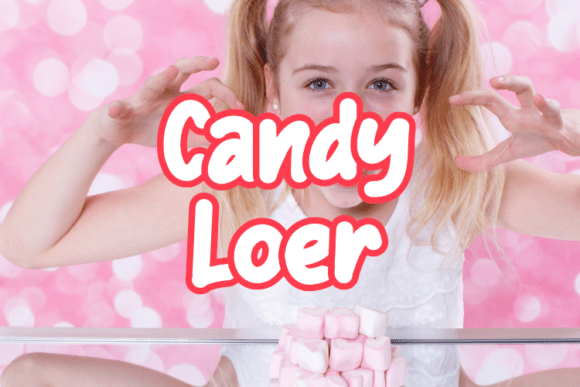
Candy Loer Font: The Ultimate Creative Companion for Design Enthusiasts
In the vast universe of typography, fonts play a pivotal role in bringing creative visions to life. Among the myriad of fonts available, Candy Loer font stands out as a versatile and stylish choice, ideal for a wide range of design projects. Whether you’re working on clothing designs, t-shirt graphics, or a plethora of other products, Candy Loer is tailored to enhance the allure of any design. In this comprehensive article, we’ll delve into the features, benefits, and applications of Candy Loer font, exploring how it can be a perfect tool for manifesting your creative vision.
Introduction to Candy Loer Font
Candy Loer font is a modern, stylish typeface designed to cater to the diverse needs of designers and creatives. Its unique charm and flexibility make it an excellent choice for various design projects, from casual t-shirt designs to more sophisticated branding materials. The font’s versatility is one of its most appealing features, allowing it to seamlessly adapt to different design contexts.
Key Features of Candy Loer Font
- Versatility: Candy Loer font is designed to be versatile, making it suitable for a wide range of design projects, including clothing designs, t-shirt graphics, posters, and more.
- Style and Allure: Candy Loer’s design is focused on enhancing the aesthetic appeal of any design, providing a perfect blend of style and readability.
- Flexibility: The font caters to a vast spectrum of design demands, making it an excellent choice for designers looking for a reliable and adaptable typeface.
Applications of Candy Loer Font
Candy Loer font’s versatility makes it suitable for a myriad of applications. Here are some of the key areas where this font can make a significant impact:
- Clothing and T-Shirt Designs: The font’s stylish and modern look makes it perfect for creating eye-catching designs for clothing and t-shirts.
- Branding and Marketing Materials: Use Candy Loer font to create professional and visually appealing branding materials, such as logos, brochures, and business cards.
- Posters and Flyers: The font’s readability and aesthetic appeal make it an excellent choice for designing posters and flyers.
- Digital Media: Candy Loer font can also be used in digital media, such as social media graphics, website headers, and more.
Benefits of Using Candy Loer Font
There are several benefits to using Candy Loer font in your design projects. Here are some of the key advantages:
- Time-Saving: With Candy Loer font, you can save time and effort in finding the perfect typeface for your design projects.
- Consistency: The font’s versatility and style ensure consistency across different design projects, helping to establish a strong brand identity.
Tips for Using Candy Loer Font Effectively
To get the most out of Candy Loer font, here are some tips for using it effectively:
- Experiment with Different Sizes: Candy Loer font looks great in various sizes, so don’t be afraid to experiment and find the perfect size for your design.
- Pair it with Other Fonts: The font pairs well with other sans-serif and serif fonts, so try combining it with other typefaces to create a unique look.
- Pay Attention to Kerning: Make sure to adjust the kerning to ensure the text looks balanced and visually appealing.
- Use it in Different Colors: Candy Loer font looks great in different colors, so experiment with various color schemes to find the perfect one for your design.
In conclusion, Candy Loer font is a versatile and stylish typeface that can elevate any design project. Its flexibility, style, and convenience make it an excellent choice for designers and creatives looking for a reliable and adaptable font. With its wide range of applications, benefits, and ease of use, Candy Loer font is a perfect tool for manifesting your creative vision.